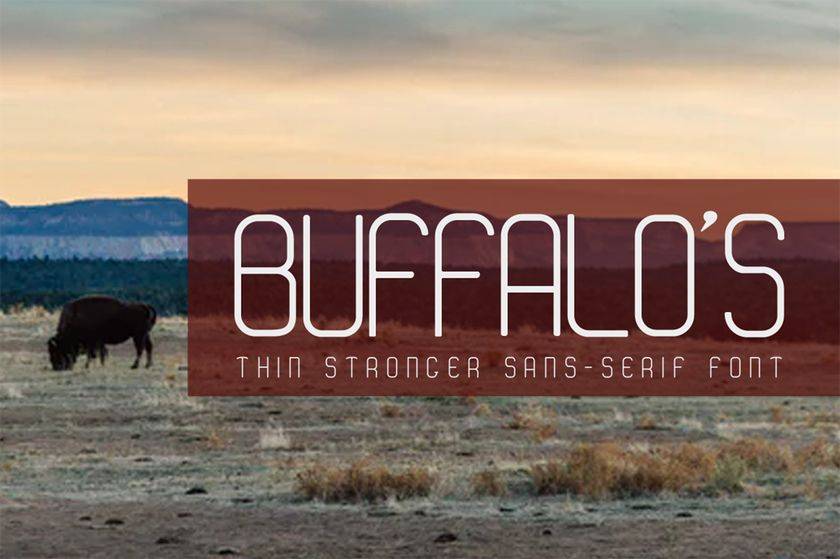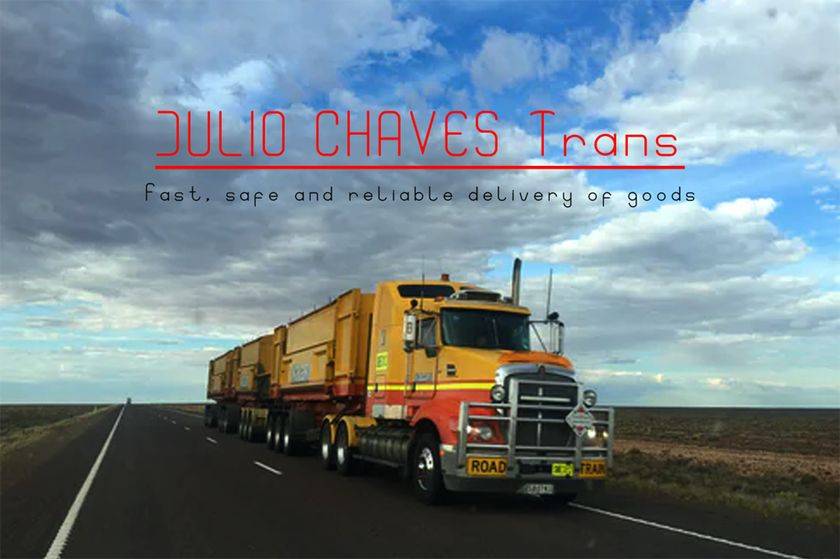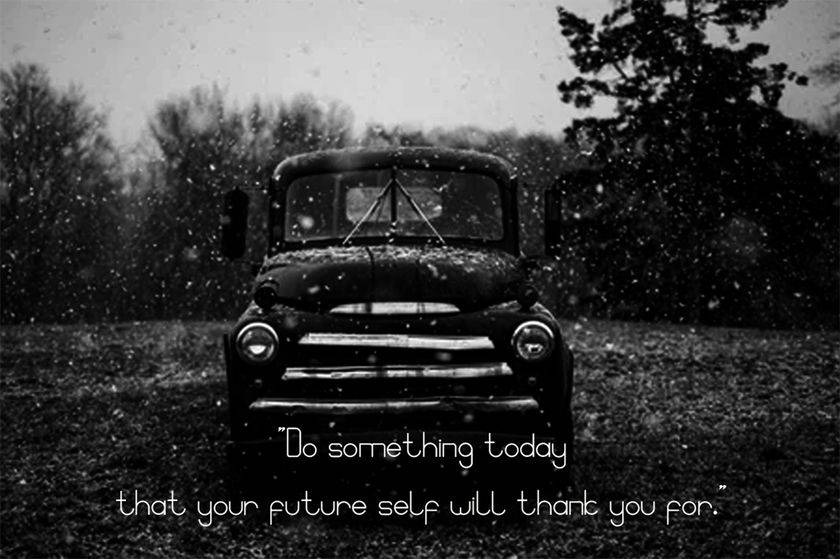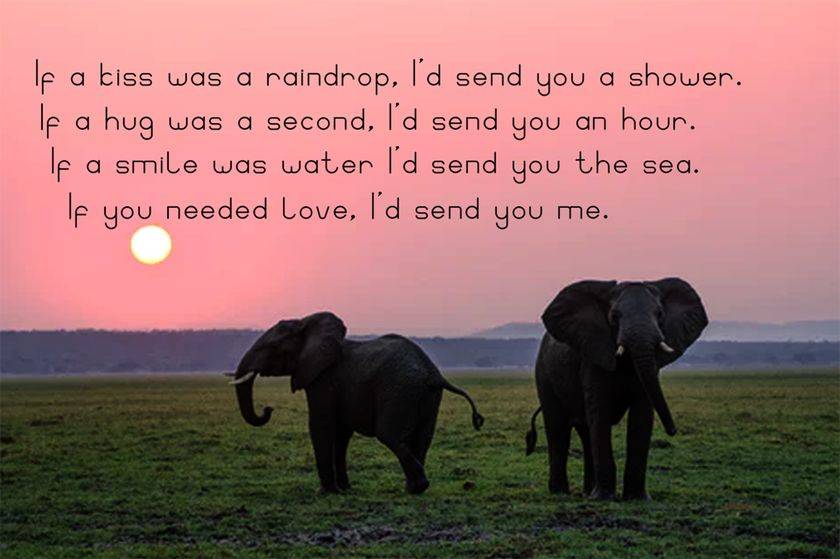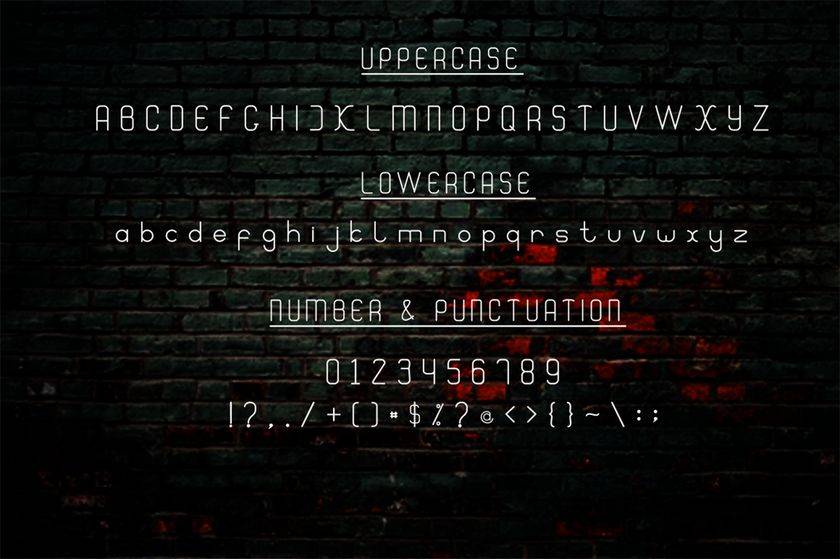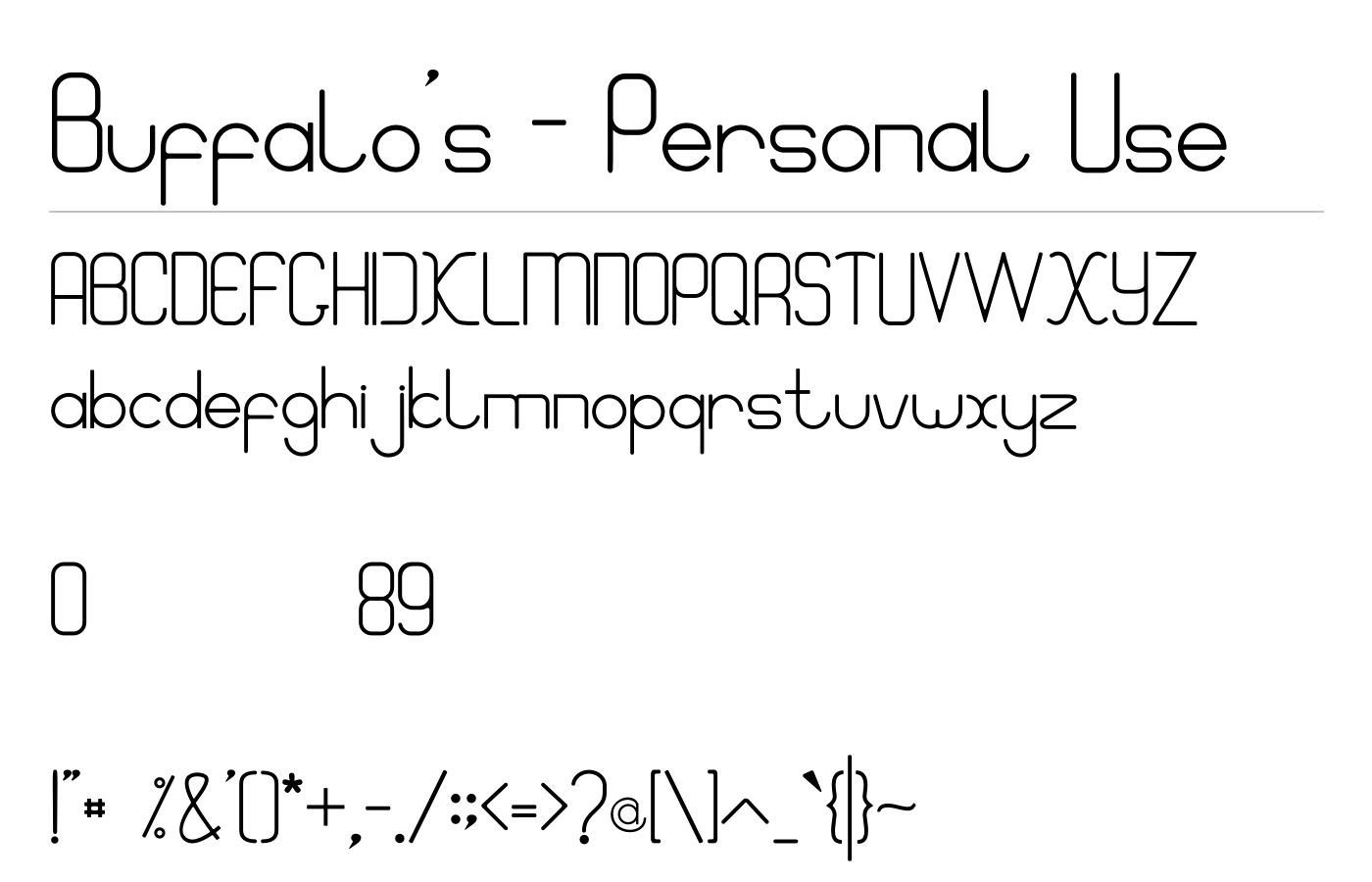
Buffalo’s Font is a sleek, modern sans serif with a tall, narrow structure and a light weight that gives it an airy, minimalist feel. Its geometric, rounded edges and unique letterforms create a playful yet refined personality, making it ideal for contemporary branding, fashion, and editorial projects where a clean, stylish look is desired. This font works best in headlines and logos, adding a distinctive and elegant touch without overwhelming the design.
Buffalo’s Font
About Buffalo’s Font
| Font family | Buffalo’s Font |
| Designer | Wahyu Edhi Widodo |
| Trademark | Gatra Studio |